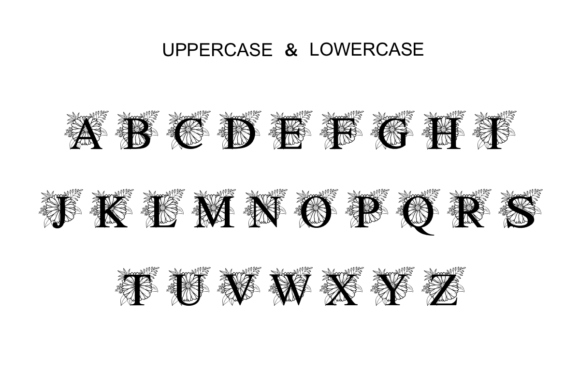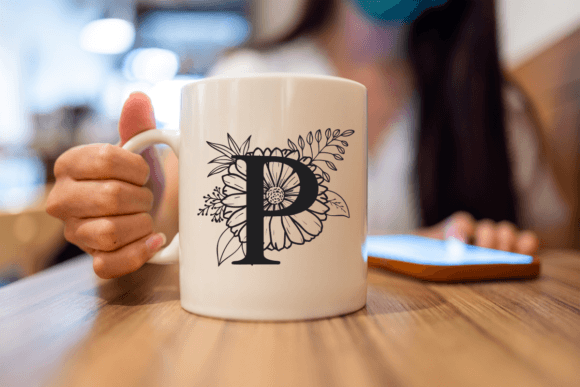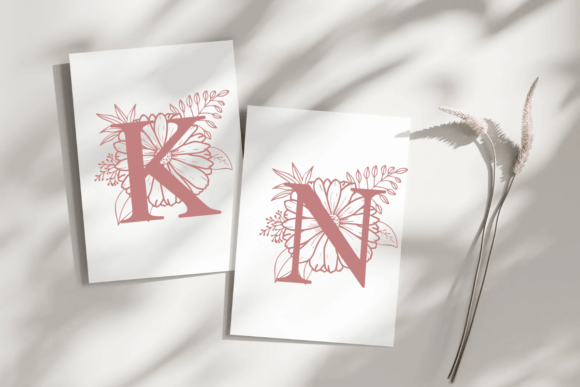
Introduction to Gerbera Font
Gerbera is decorative font with floral elements.
You can use it for taking notes, writing a diary, or making greeting cards However, you can still use it for other designs, such as banners, content, mugs, cards, shirts, stationery, social media posts, and more.